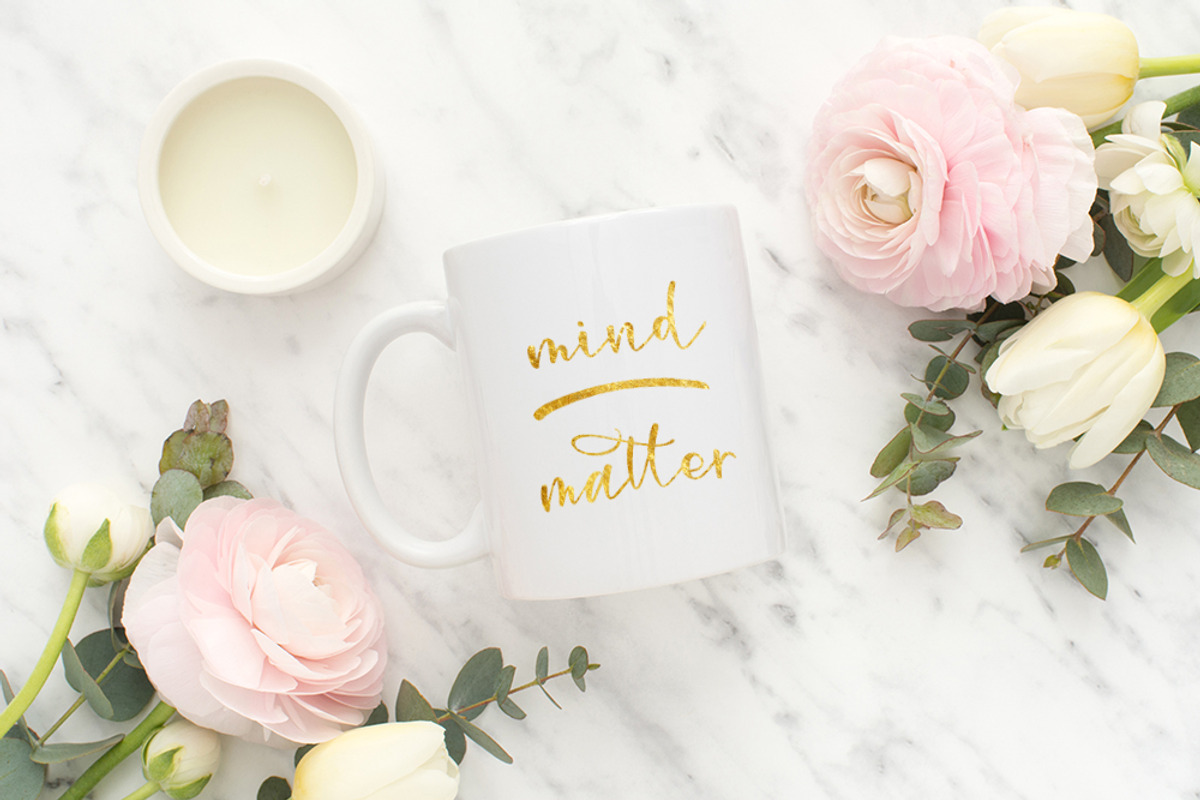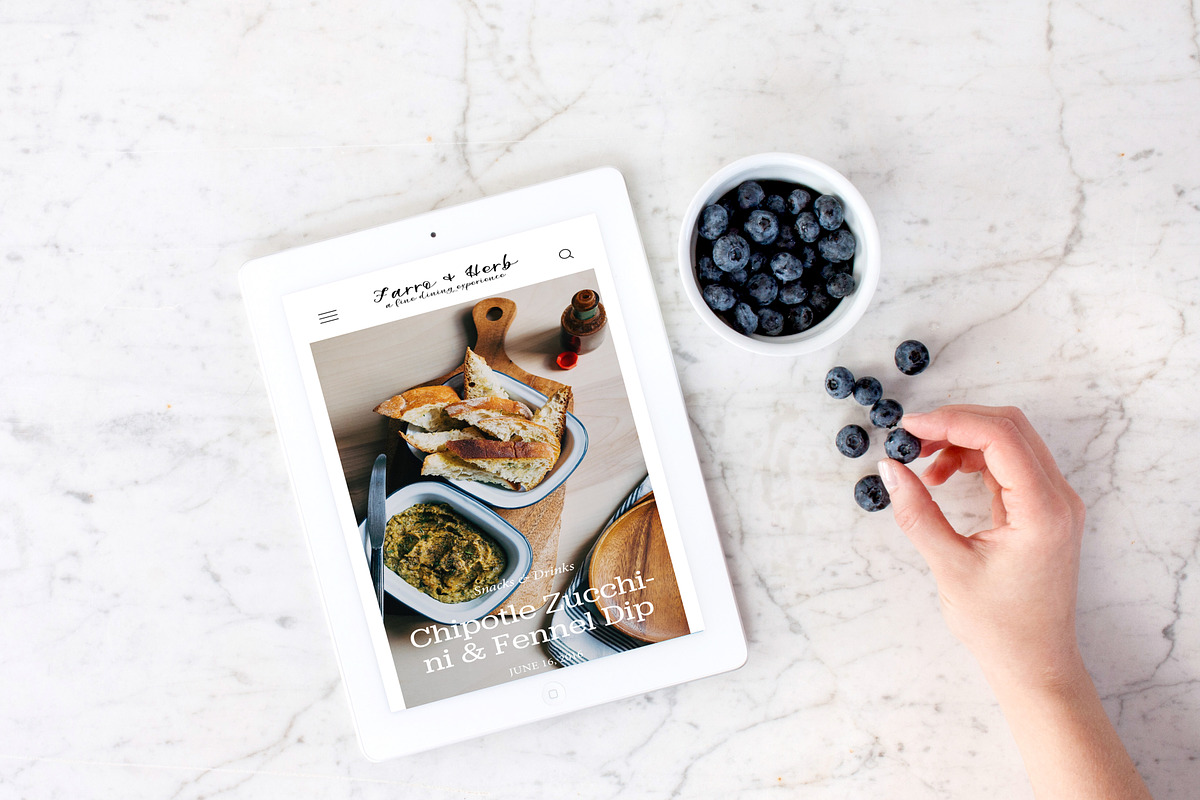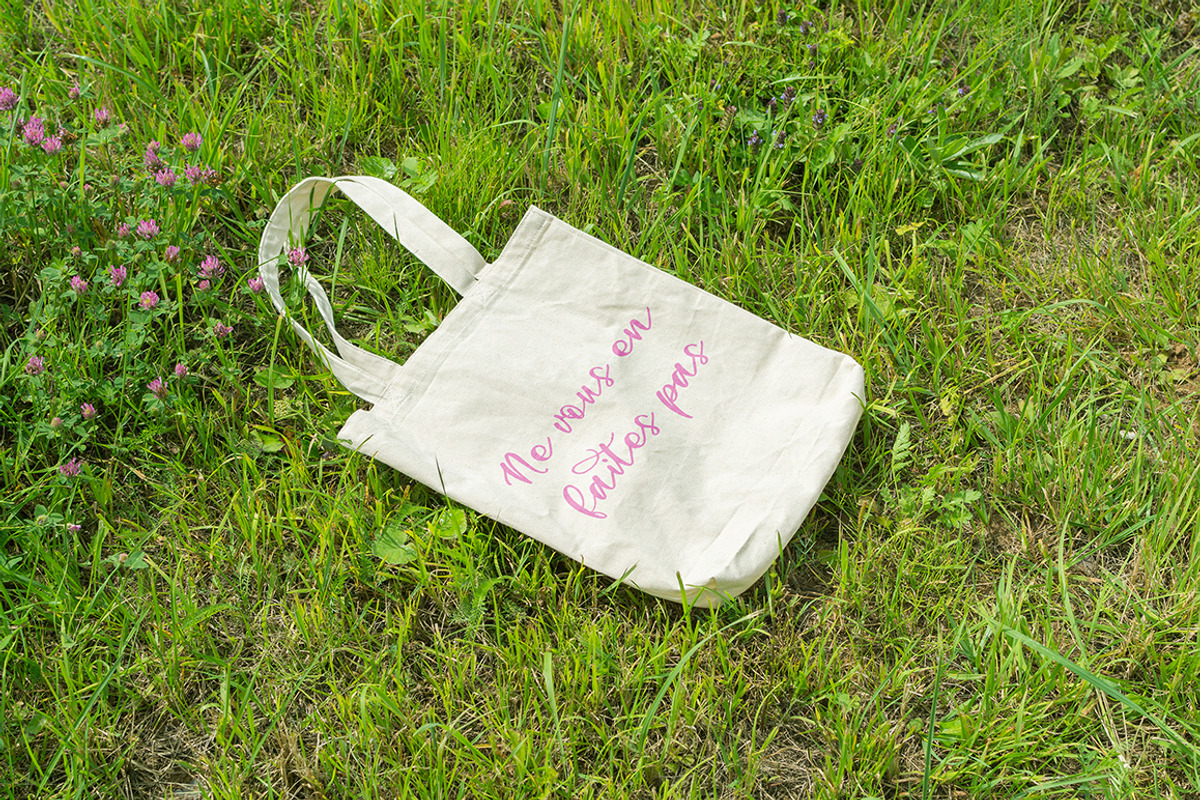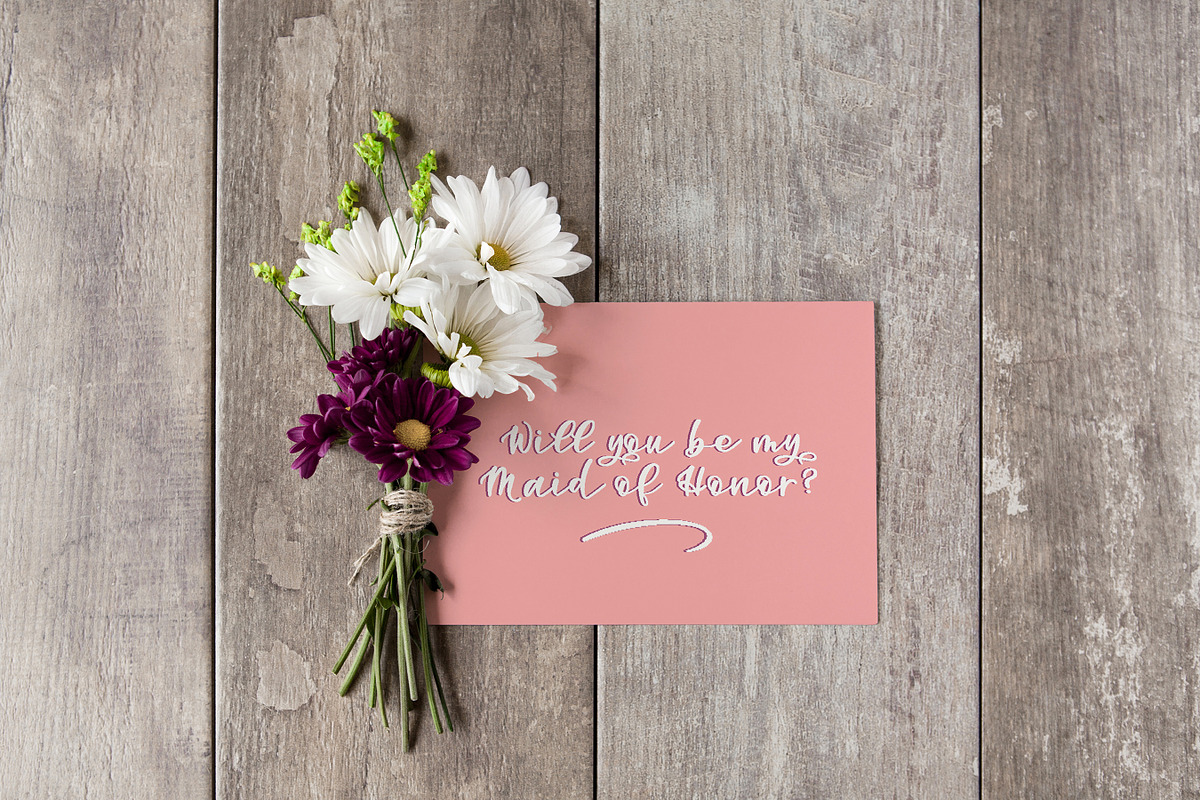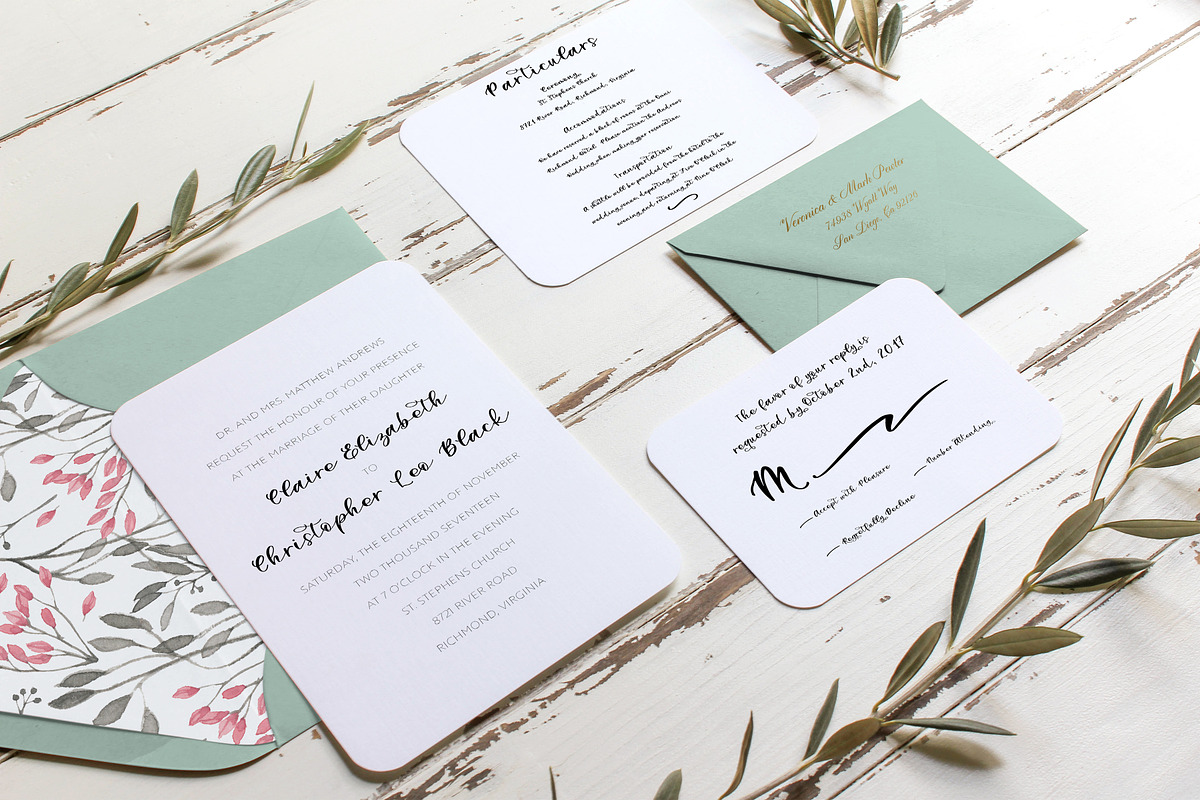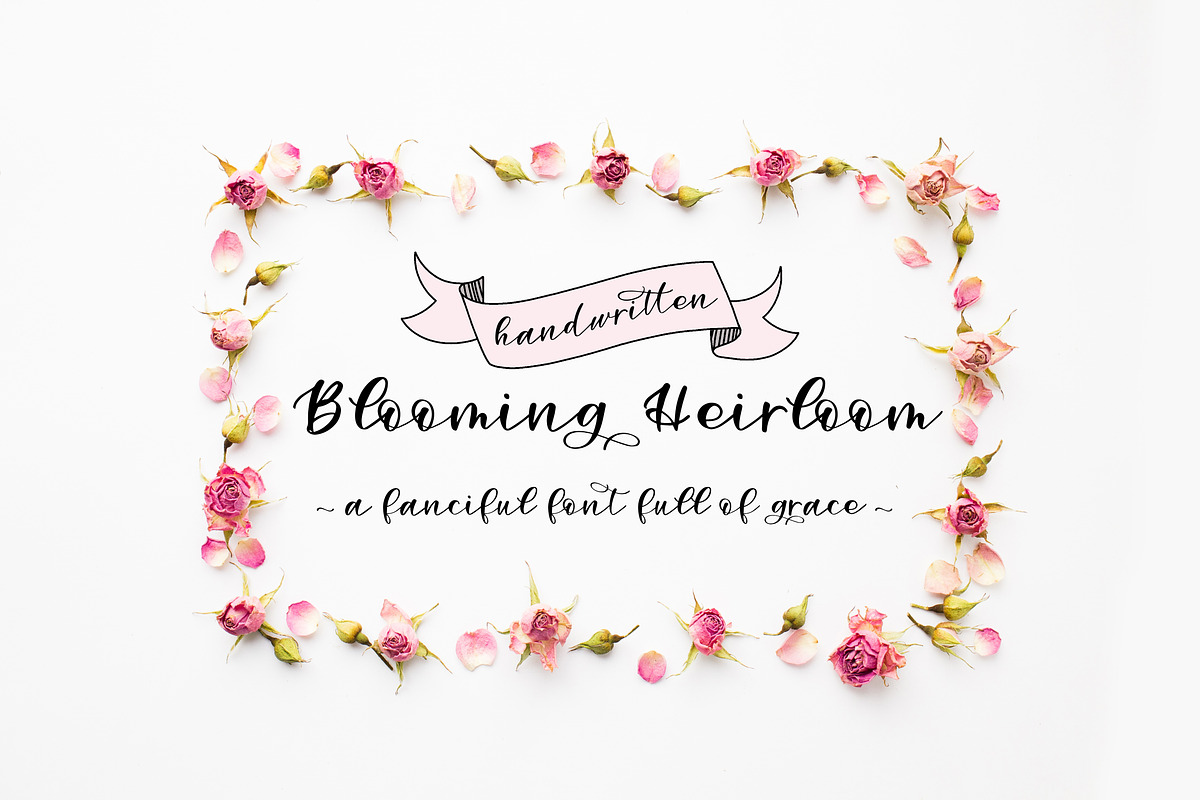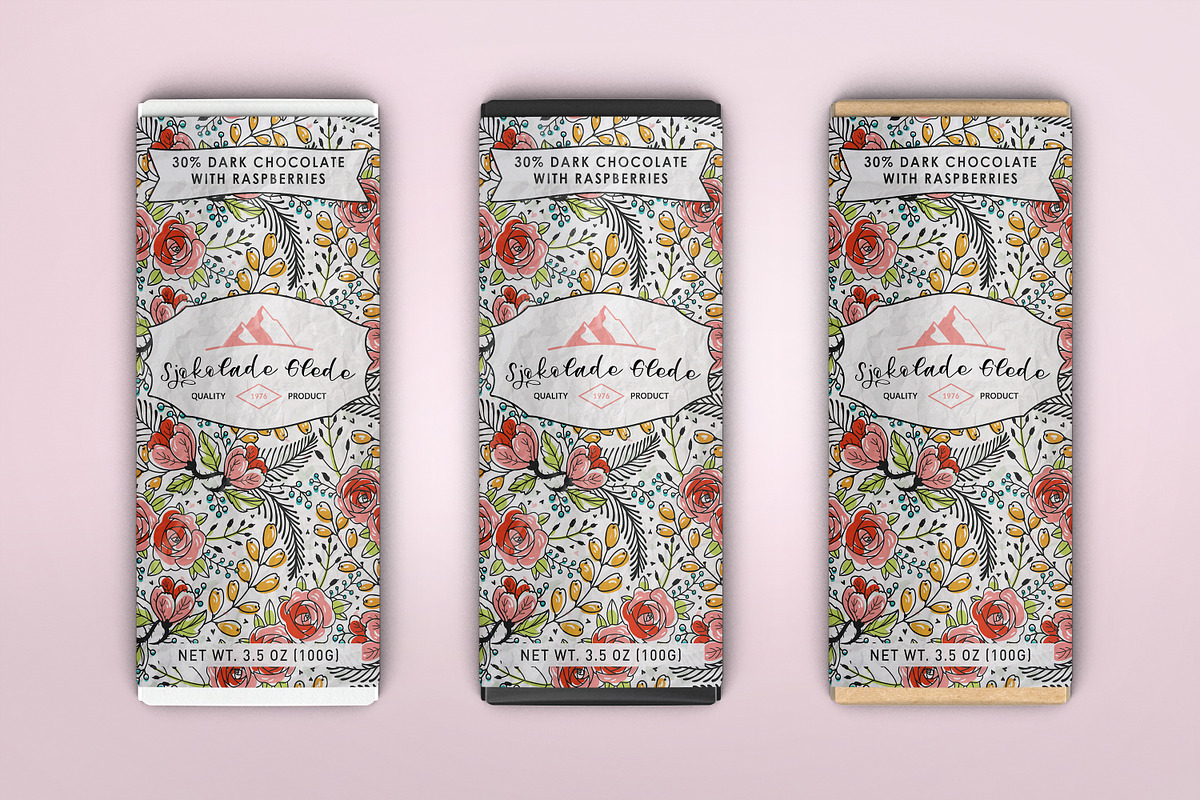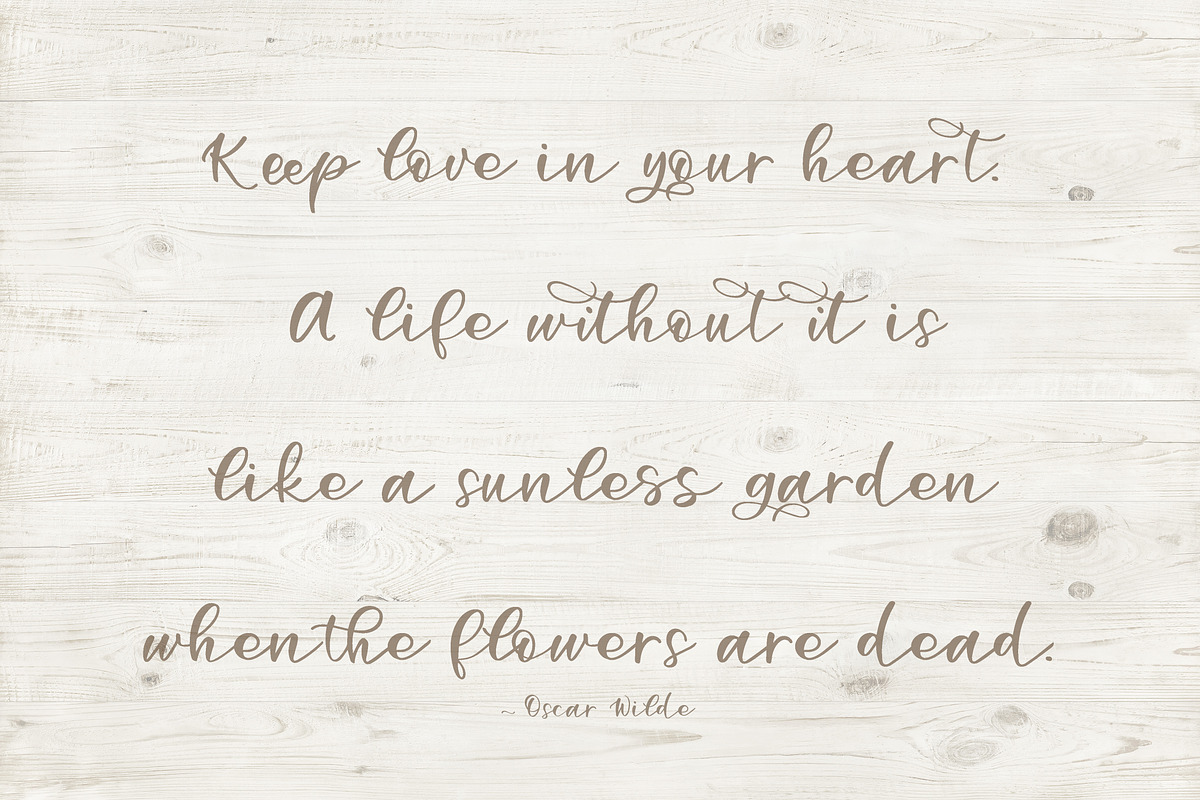
Blooming Heirloom-A Handwritten Font
Blooming Heirloom-A Handwritten Font by Lulu Ink Designs is a font selected for branding, posters, packaging, typography.
- Added ligatures give this handwritten font a personal touch of realism without you having to do any of the work.
- Not only does this script font support International Characters, it is chalk full of added ligatures and brush strokes.
Why Blooming Heirloom-A Handwritten Font is worth a look
Blooming Heirloom-A Handwritten Font by Lulu Ink Designs fits naturally into Branding, posters, packaging, typography.